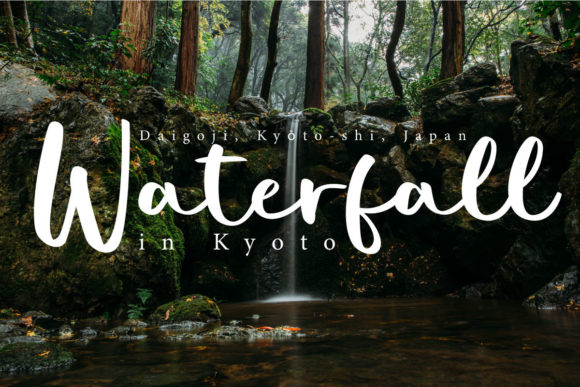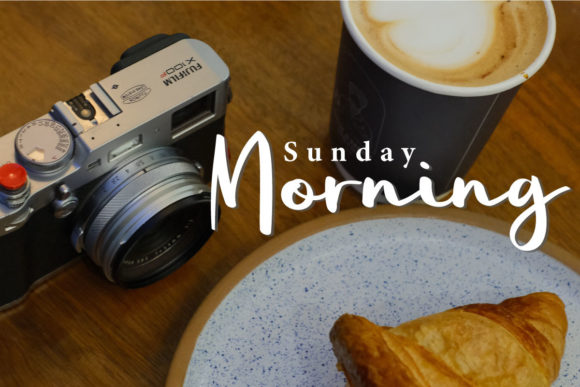
Galvin Font
db-ku.com - Script & Handwritten -- Galvin is a stylish and chic script font. Add this elegant looking font to each of your love letters, wedding invitations or favorite design ideas, and you will be astounded by the outcome.